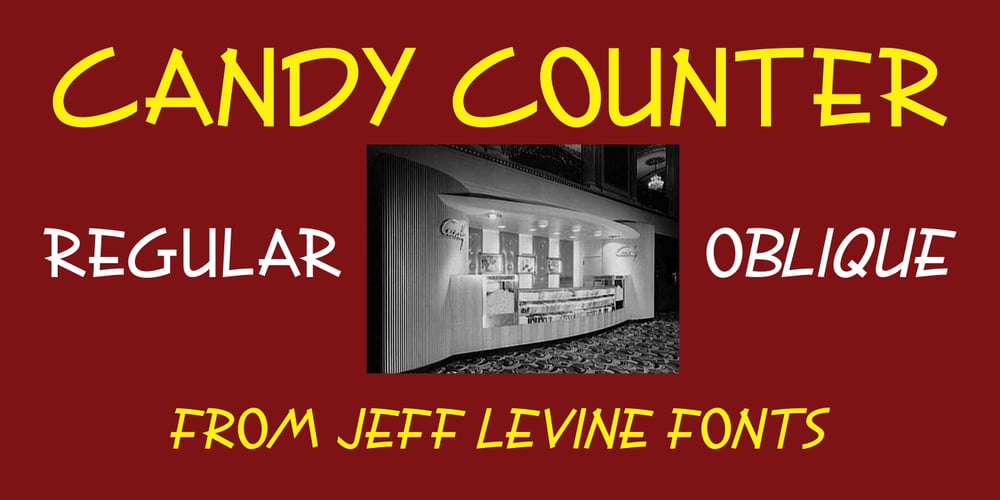
Candy Counter JNL Font Family was designed by Jeff Levine and published by Jeff Levine. Candy Counter JNL contains 2 styles and family package options. An ad for Republic Pictures in the 1939 edition of Film Daily’s “Cavalcade” was hand-lettered in a pleasant and casual sans serif type style.This design is now available digitally as Candy Counter JNL, in both regular and oblique versions.